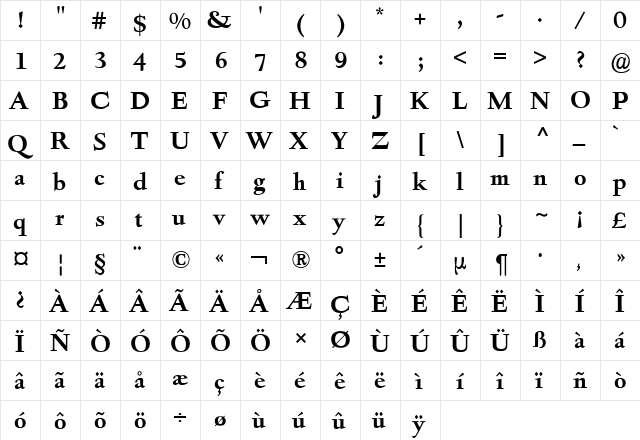
Deepdene BQ Bold
Design Context for Deepdene BQ Typeface
Deepdene BQ offers clean, dependable letterforms without strong stylistic allegiance, making it a practical choice for designers who need flexibility. Its bold stroke weight gives it real presence on the page.